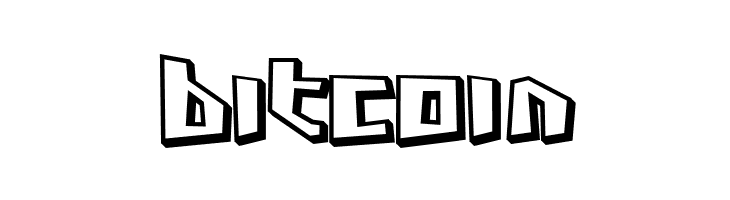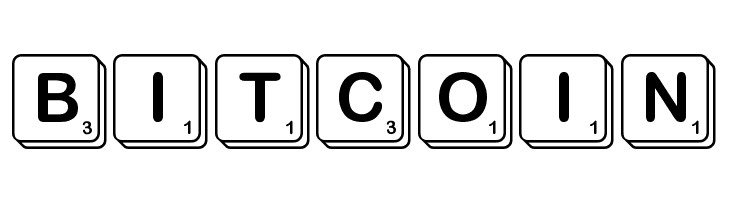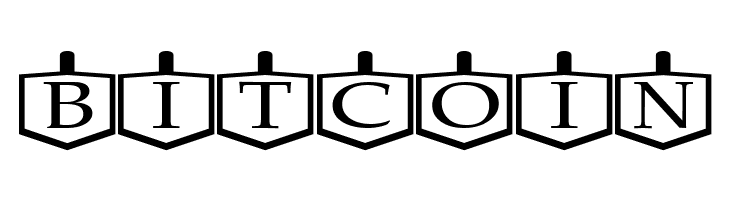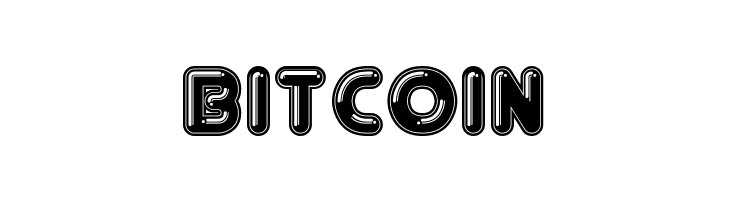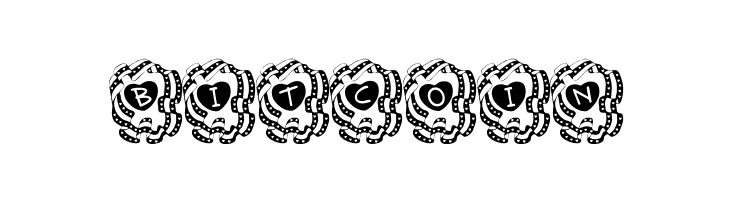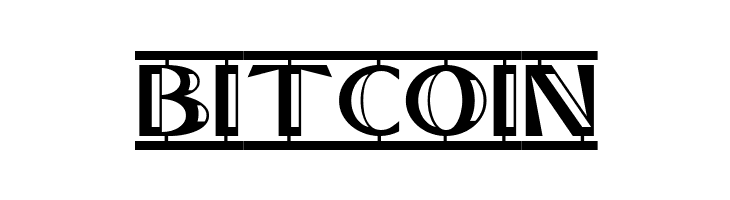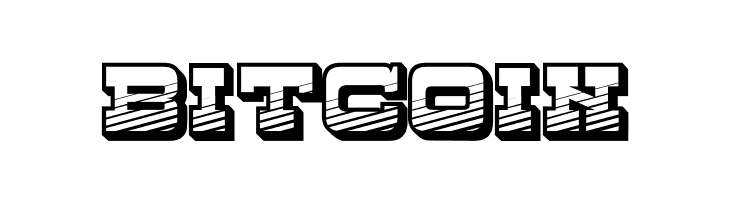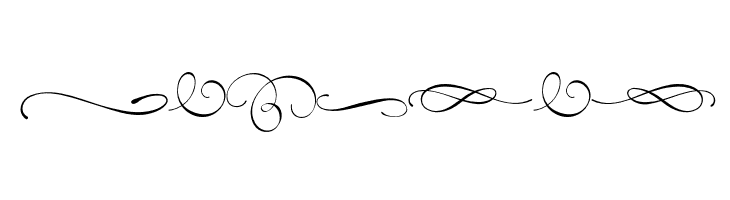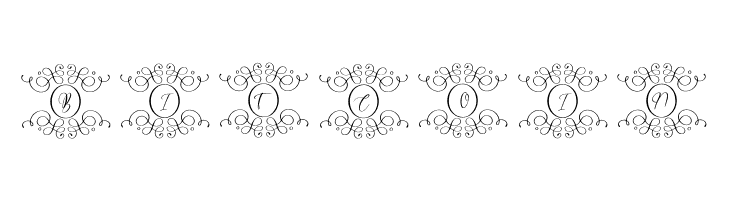
Intricate and elegant swashes with flowing, ornate curves.
The image contains decorative monogram-style swirls, not a valid font.
A decorative monogram font with Chinese-inspired circular borders around bold capital letters.
A bold, geometric font with octagonal borders and a three-dimensional effect.
A playful dingbat font with clover icons and dancing silhouettes.
Geometric sans-serif font with decorative circular borders.
Pixel-art dingbat font with geometric and decorative motifs.
Hand-drawn, whimsical sun icon set with playful lines.
A playful font with characters enclosed in dreidel shapes, ideal for festive themes.
A bold, outlined font with a strong, dimensional presence.
A bold, geometric font with a 3D offset shadow effect.
A bold, decorative font with a puzzle-like, geometric design.
A bold, geometric font with a 3D shaded effect and thick outlines.
A bold, geometric outline font with a modern, structured appearance.
A bold, decorative font with a hollow, outlined design and modern appeal.
A bold, decorative font with geometric influences and high contrast.
A bold, geometric font with a 3D offset shadow effect.
A bold, geometric font with characters enclosed in circles, offering a modern and decorative style.
A playful, decorative font with bold letters and numbers encased in dotted circles.